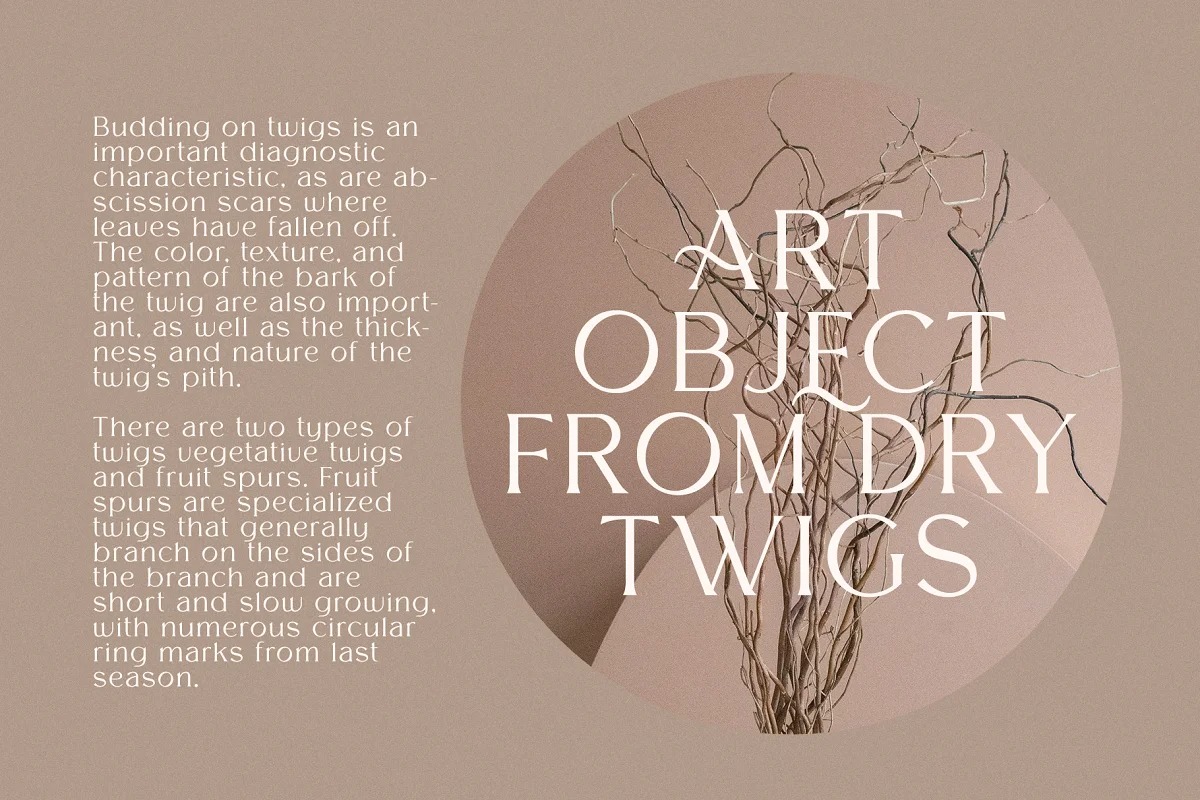
Melion Font Family
Melion Serif Font
It’s an elegant serif font family with a feminine style. This beautiful collection will instantly add class to all of your design projects. It is the perfect branding font and will help you to easily create logos, wedding designs, and all other commercial projects.